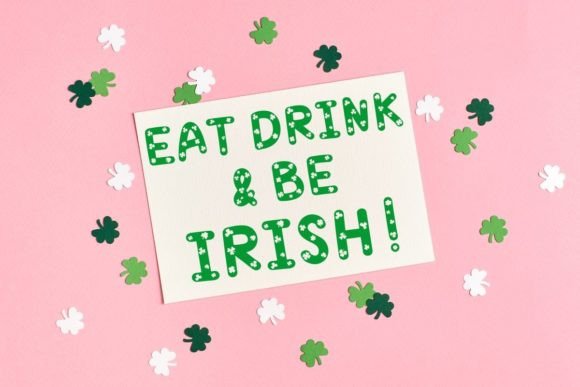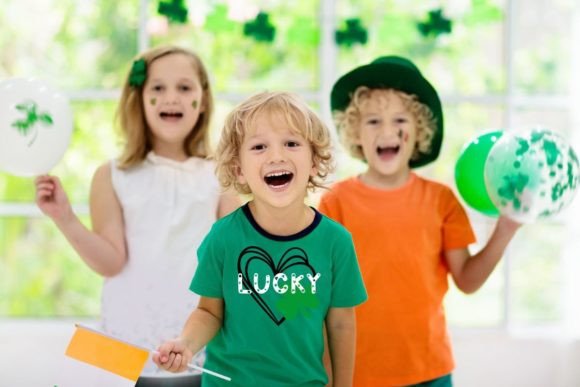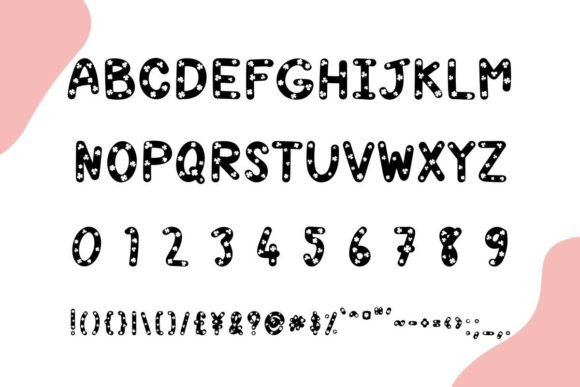
Introduction to Irish Font
Irish is an exquisite decorative font, carefully elaborated to become a true favorite.
It has an outstanding writing technique that fits lots of design ideas From greeting cards to headlines, stickers, and greeting cards, add it to any of your designs and enjoy the results.